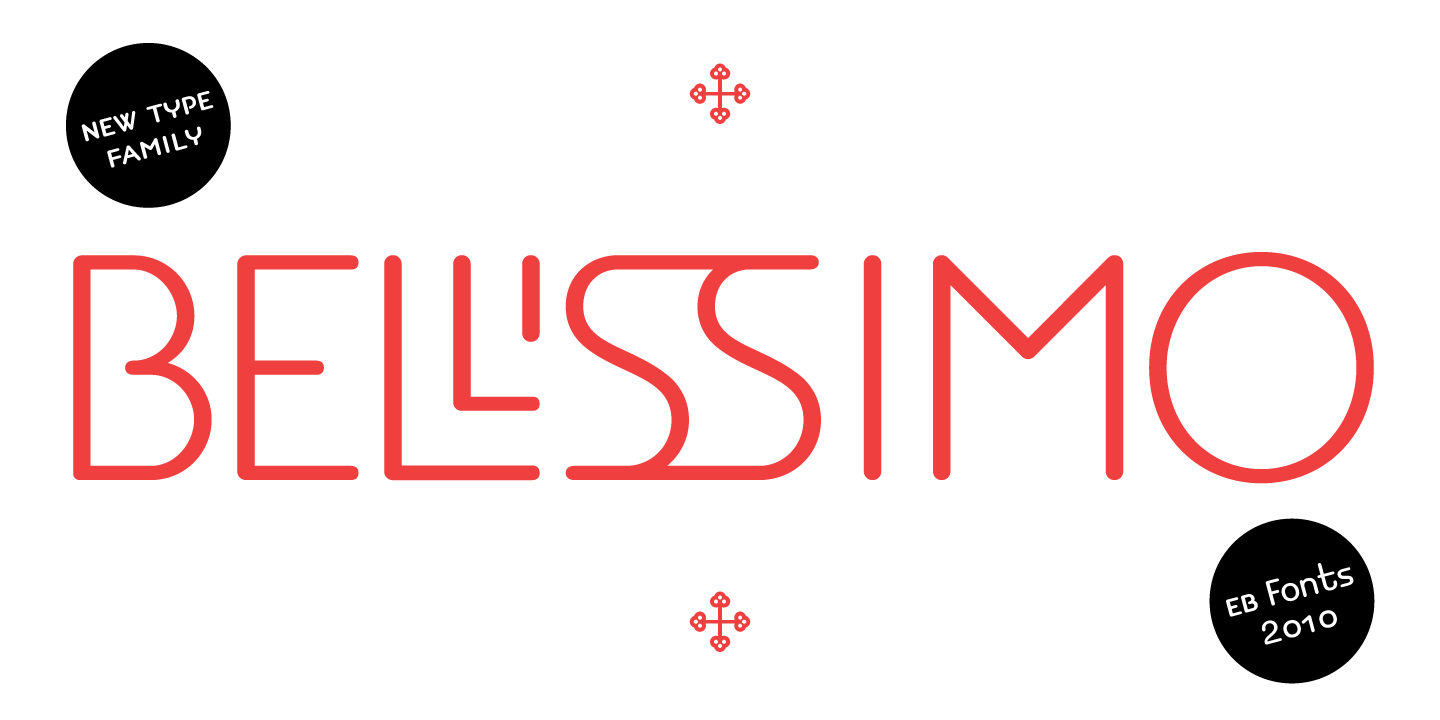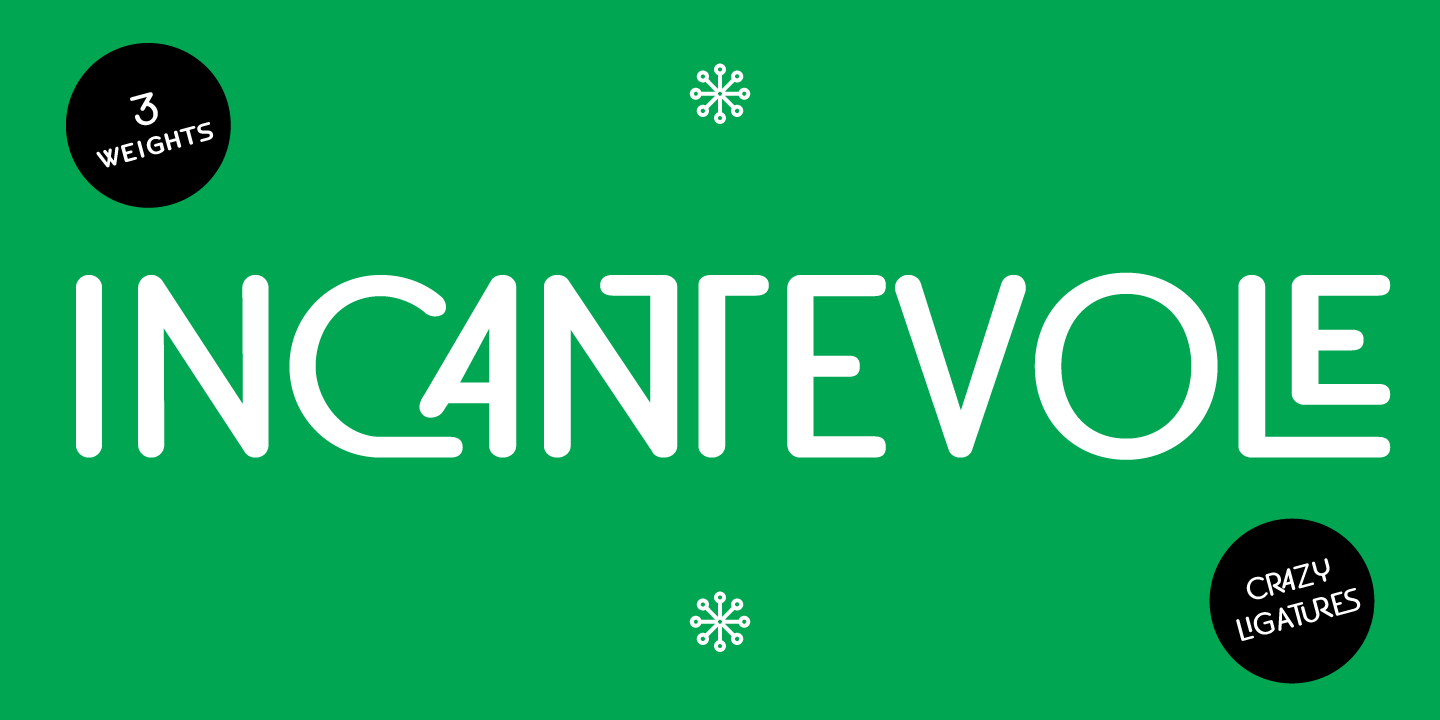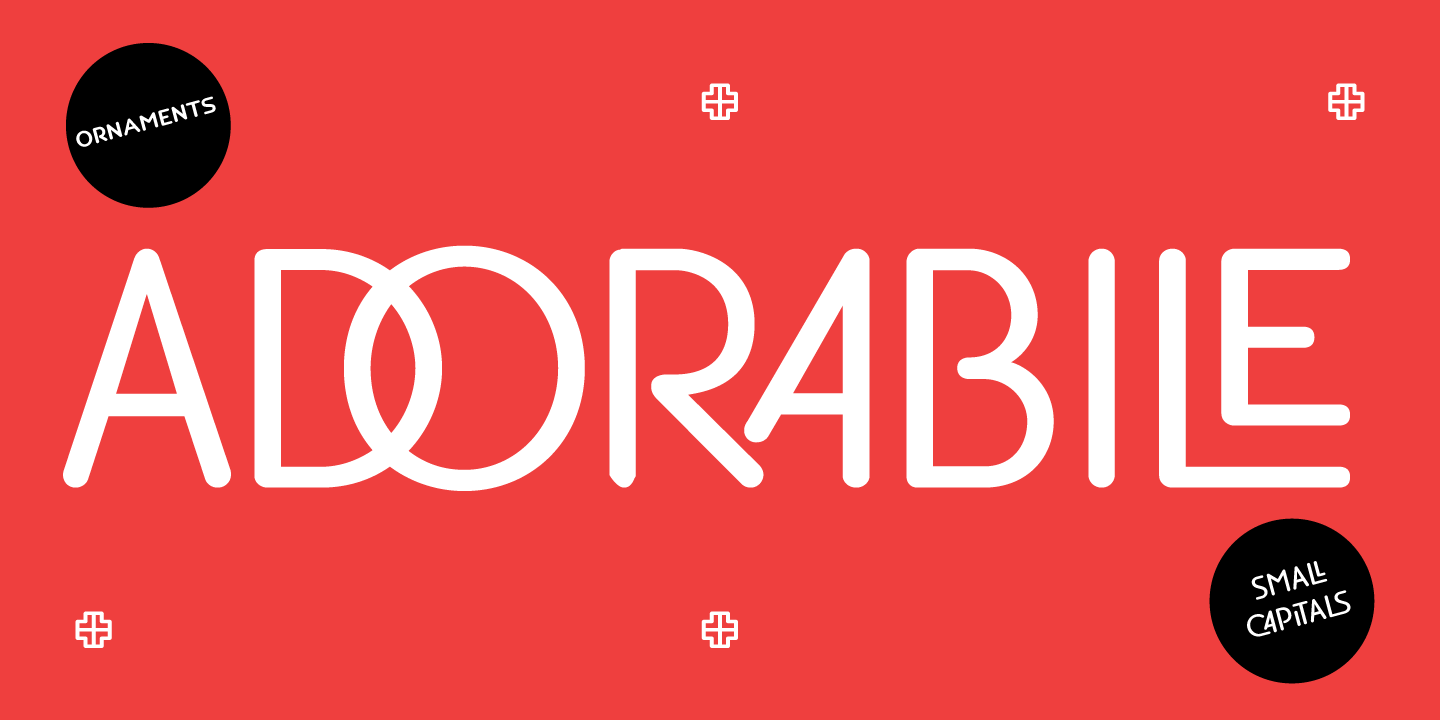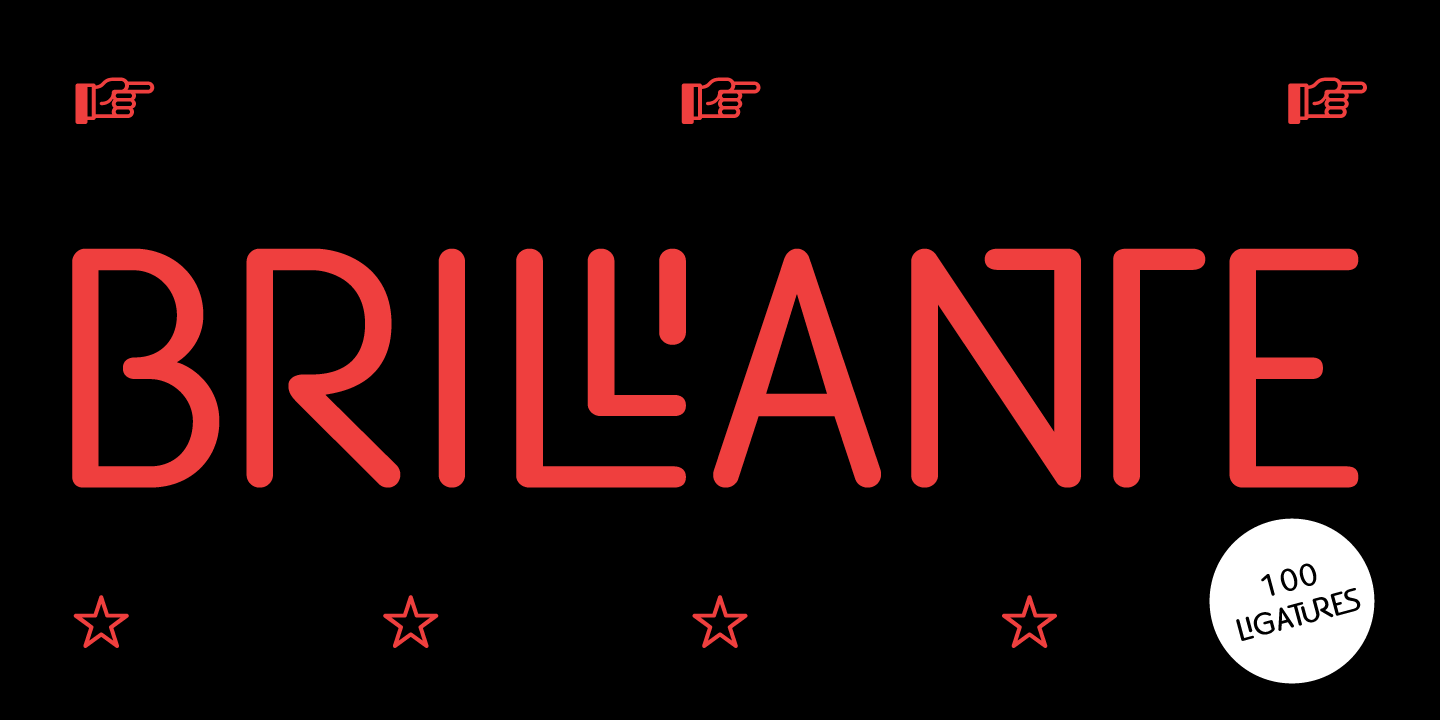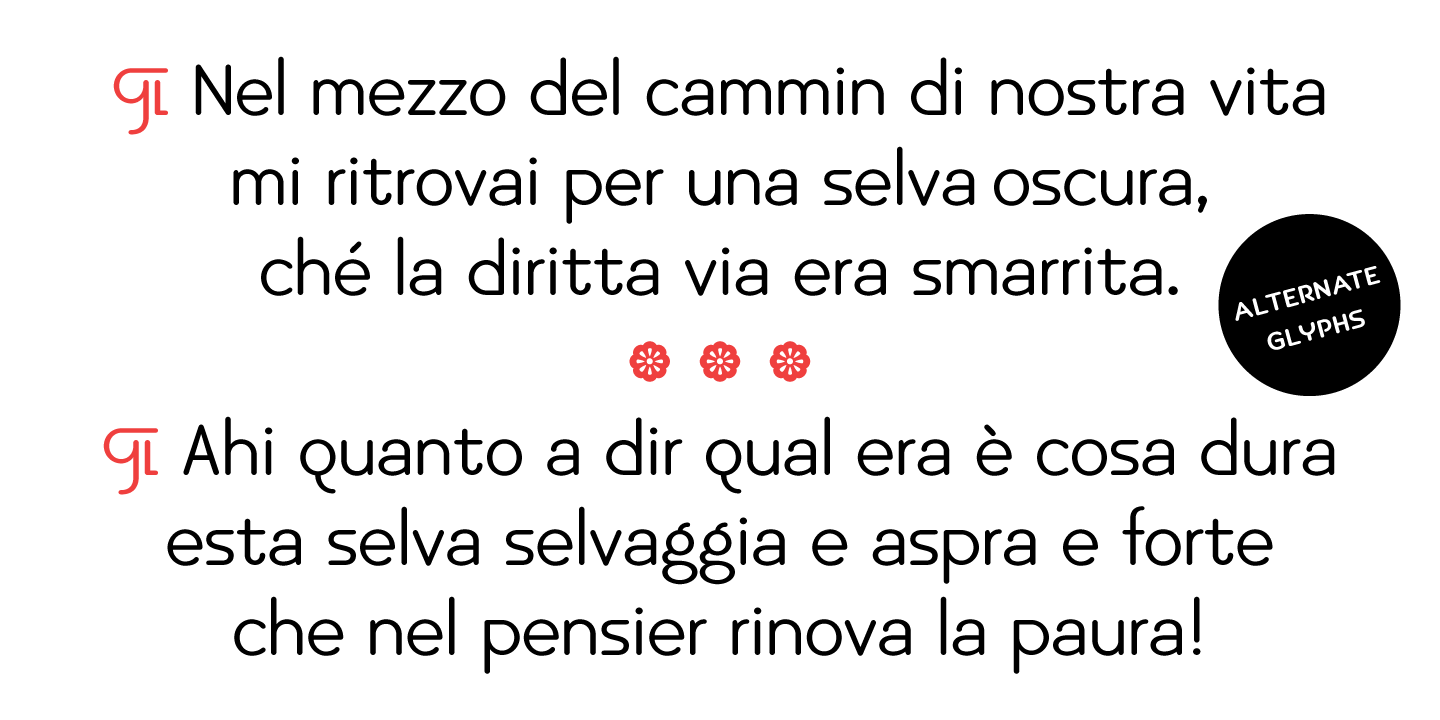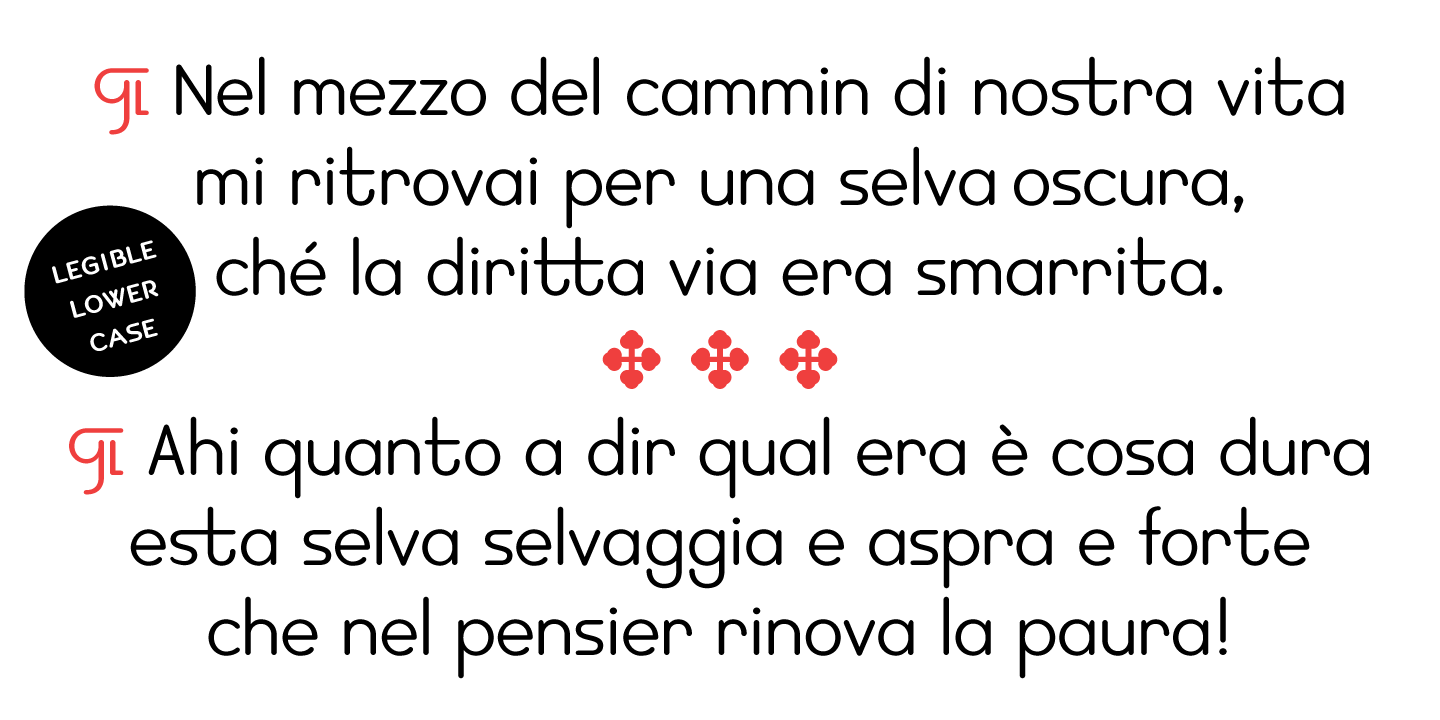
EB Bellissimo Display
Bellissimo Display boasts an impressive range of handsome all caps ligatures that would make even Herb Lubalin jealous. Despite its iconic features, Bellissimo works surprisingly well as a text face as well. Small capitals, alternate glyphs and both lower and upper case figures are intrinsic in the design.